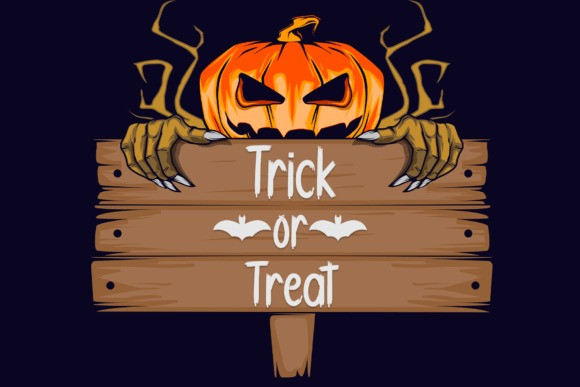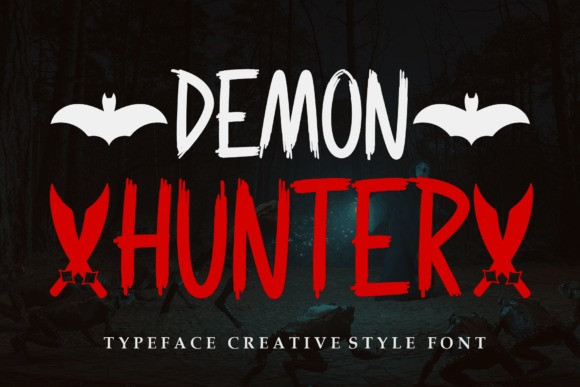
Demon Hunter Font
Demon Hunter Font a formidable and intense display typeface that captures the essence of darkness and mystery. With its sharp angles and intricate details, this font embodies the spirit of a relentless warrior. Perfect for fantasy-themed designs, gaming logos, and occult branding, Demon Hunter Font commands attention and adds an air of intrigue to your projects. Embrace the darkness and let the power of Demon Hunter Font mesmerize your audience.